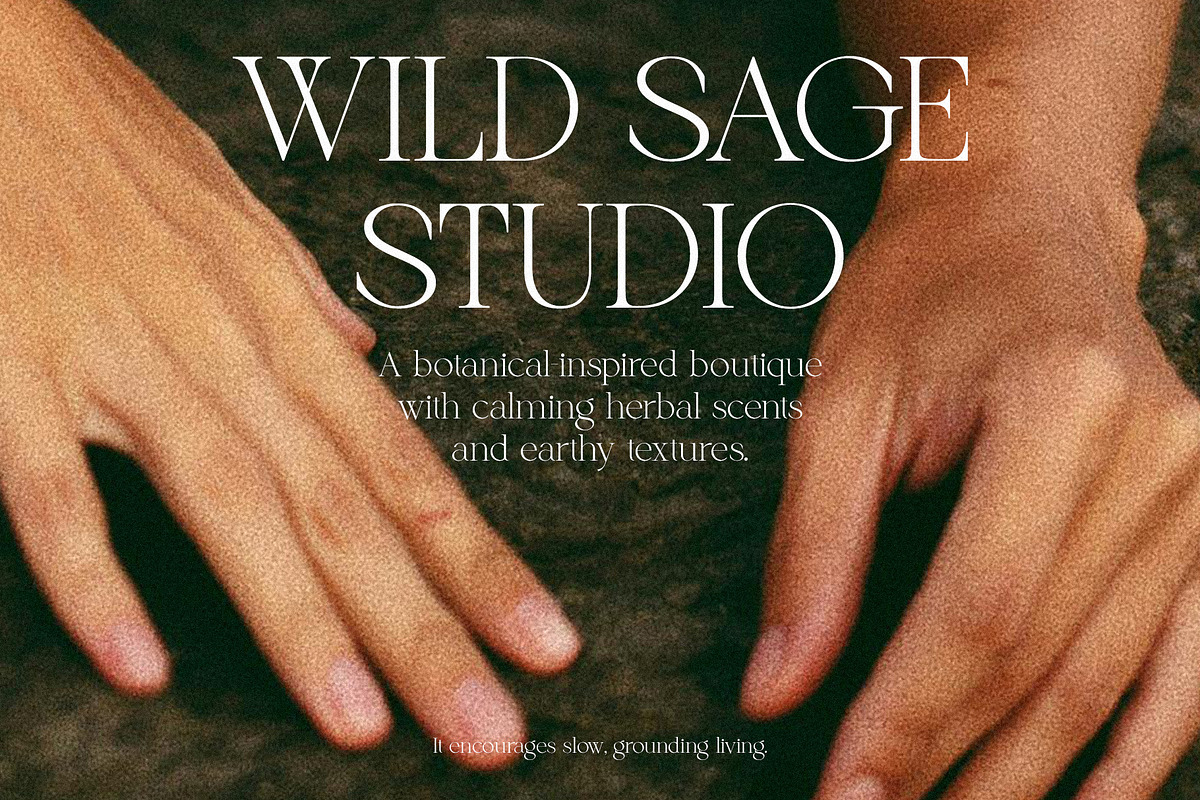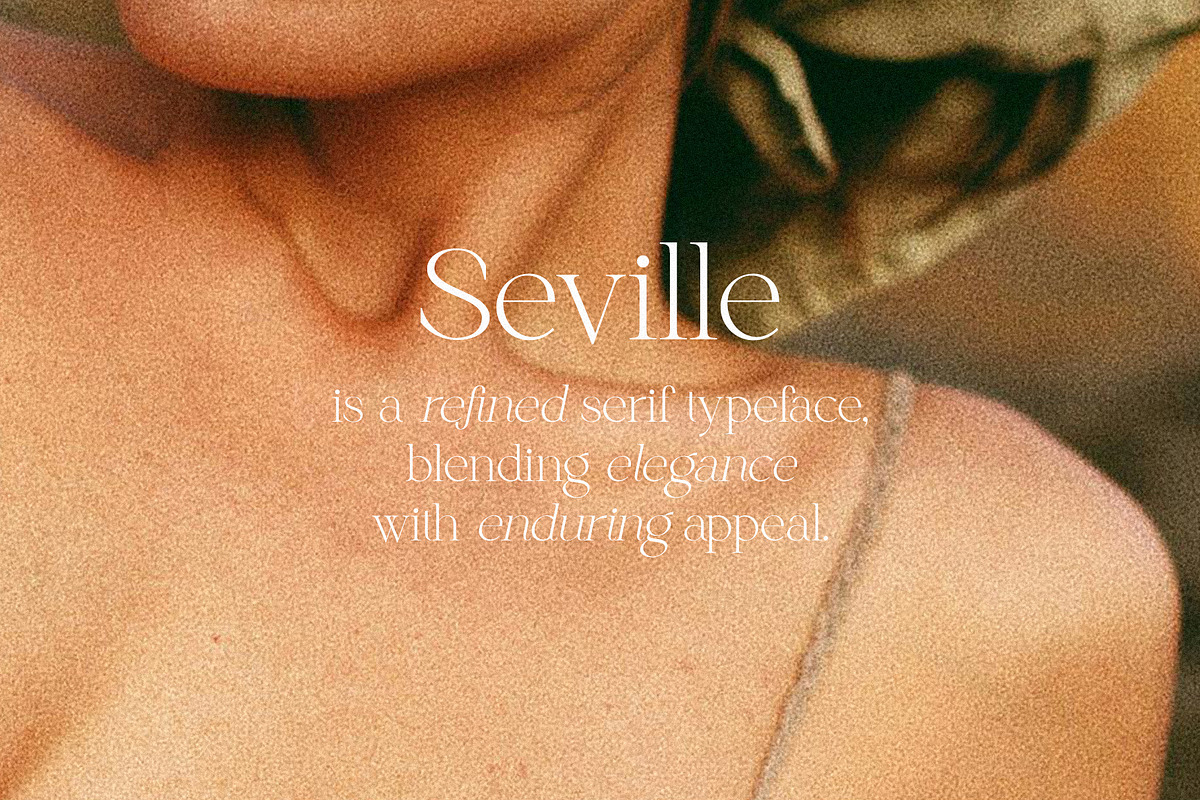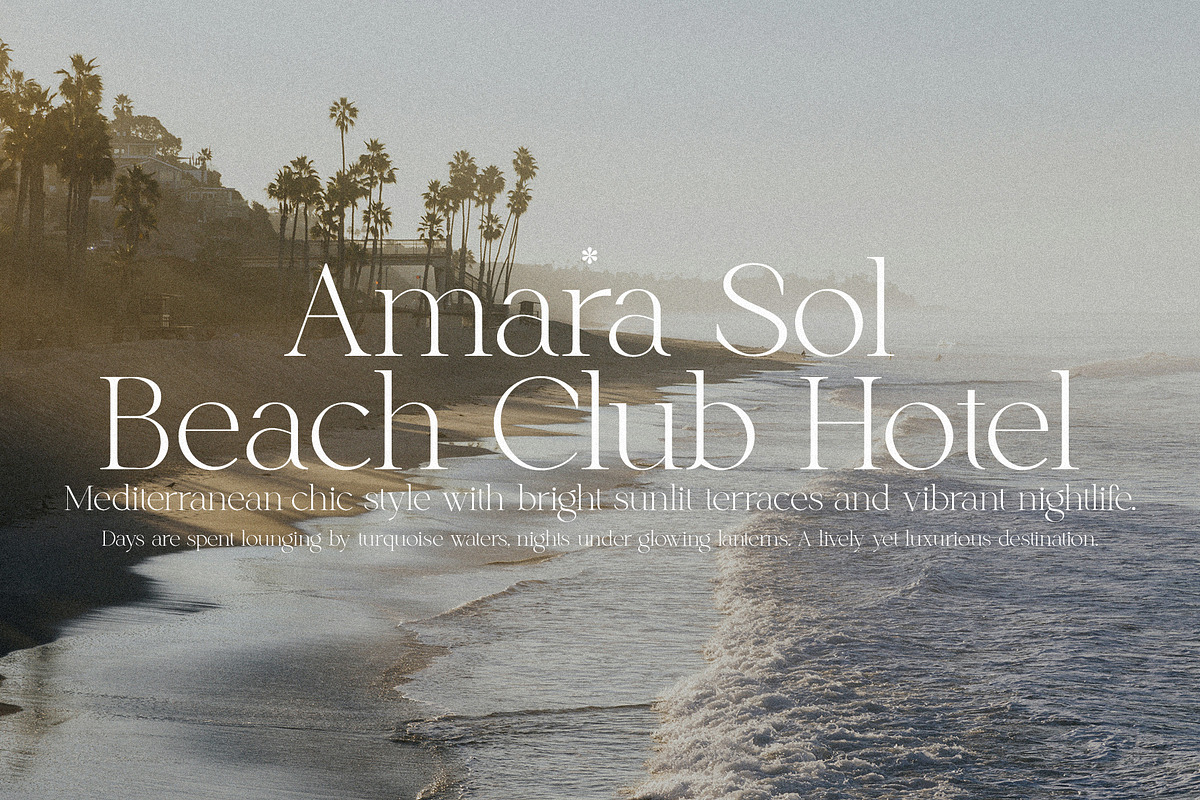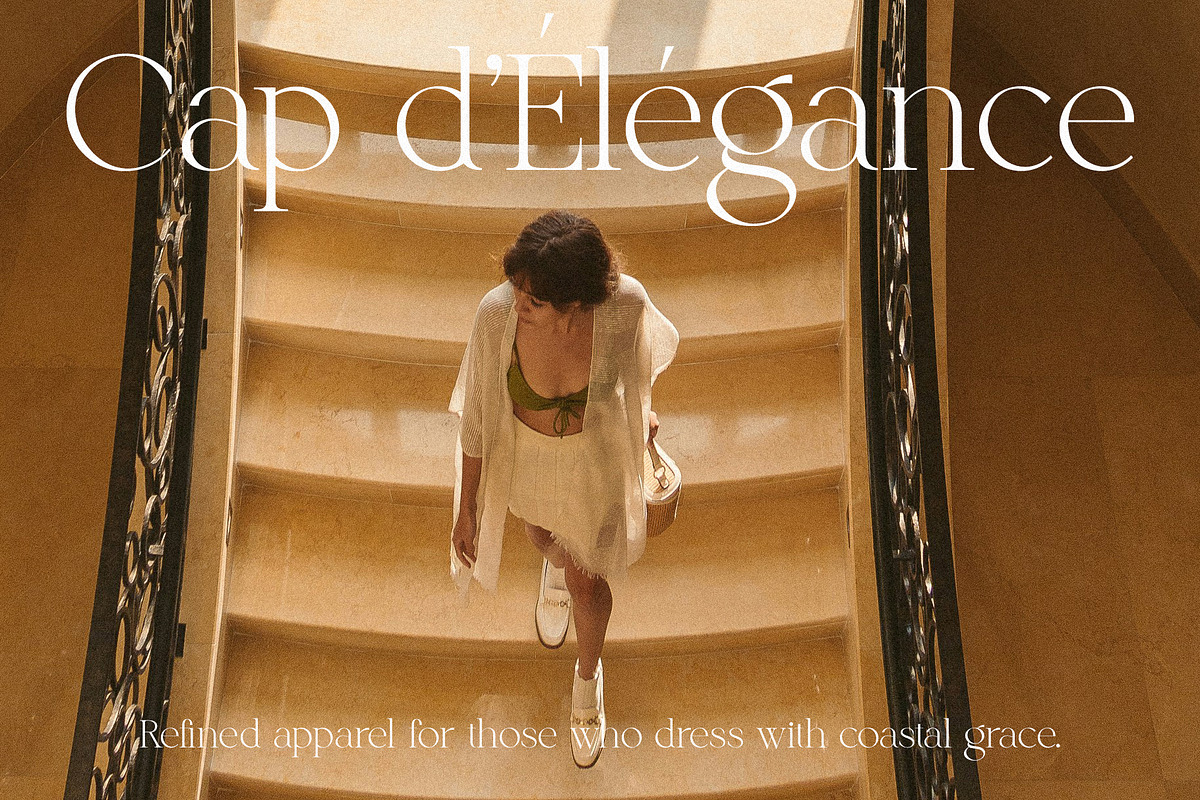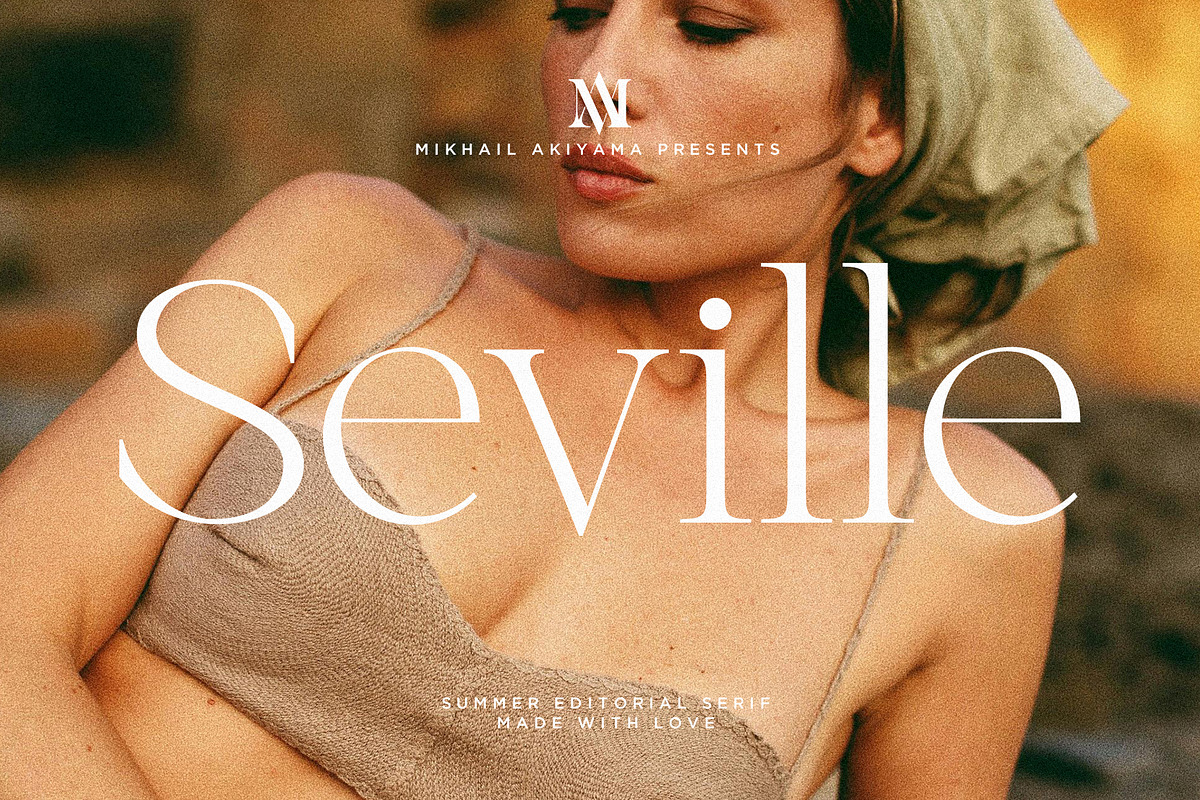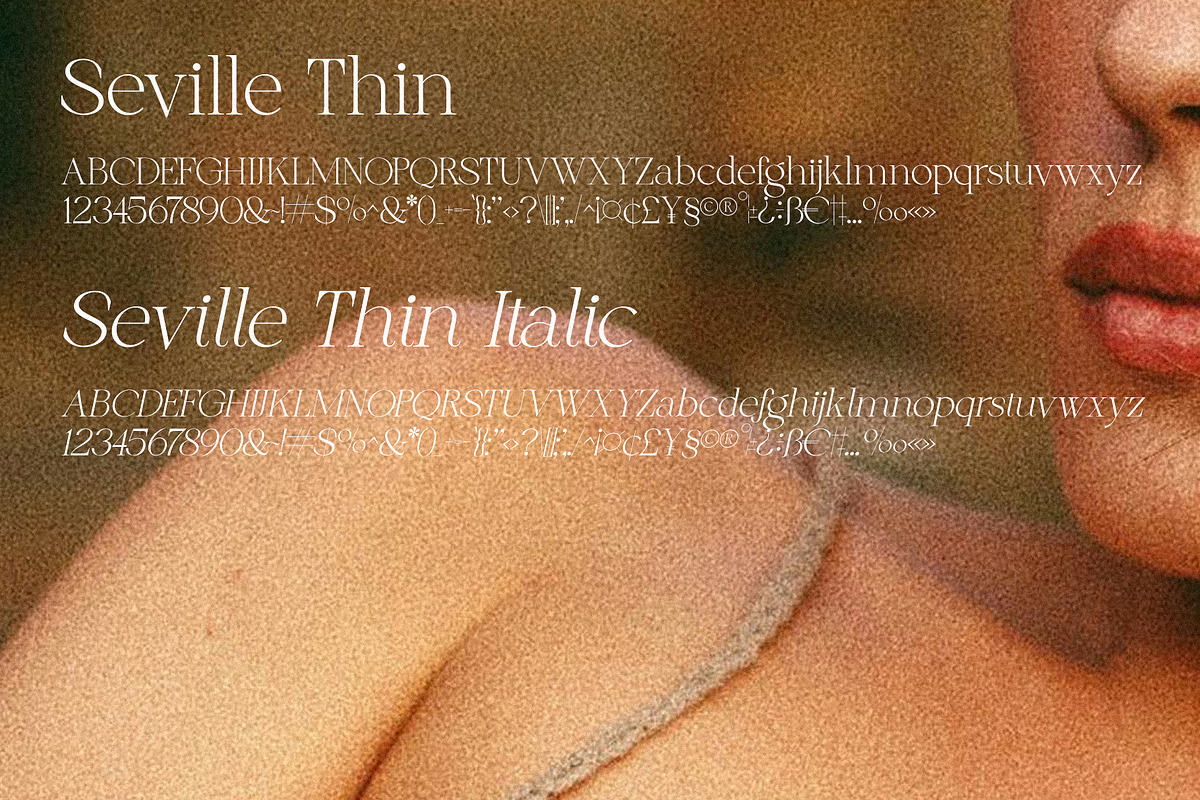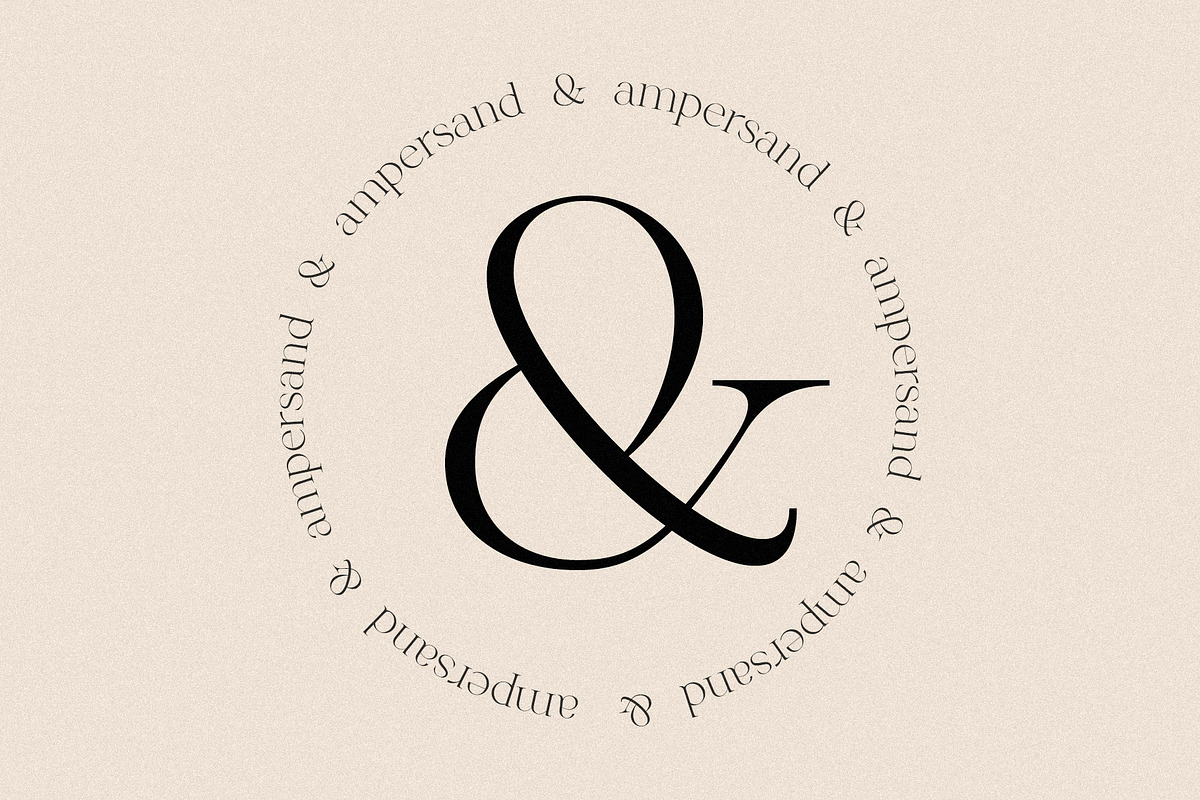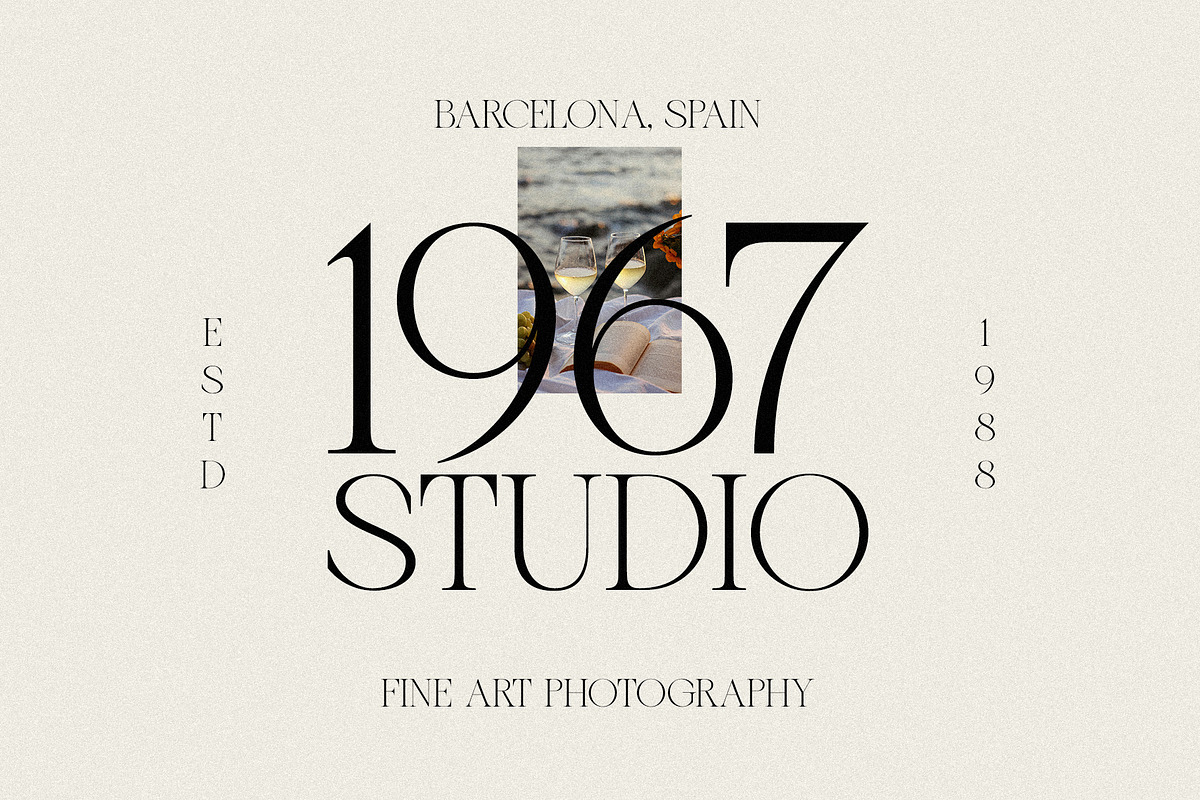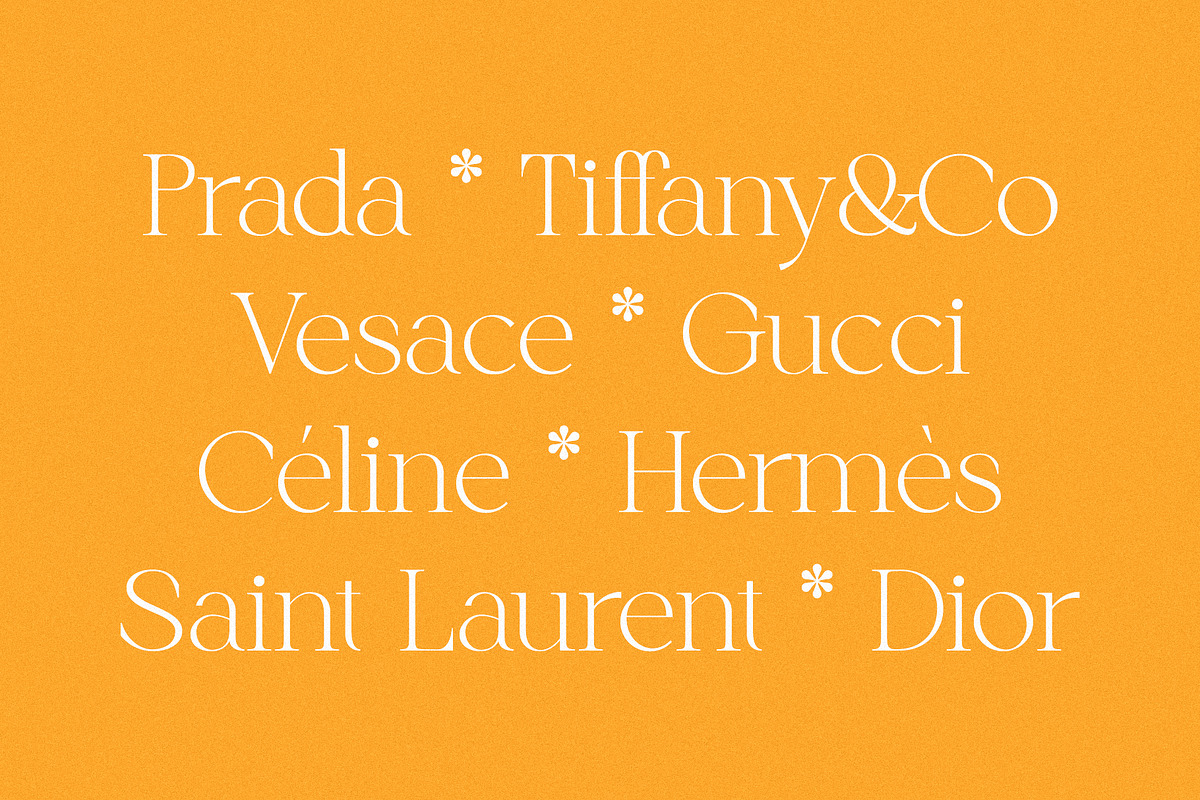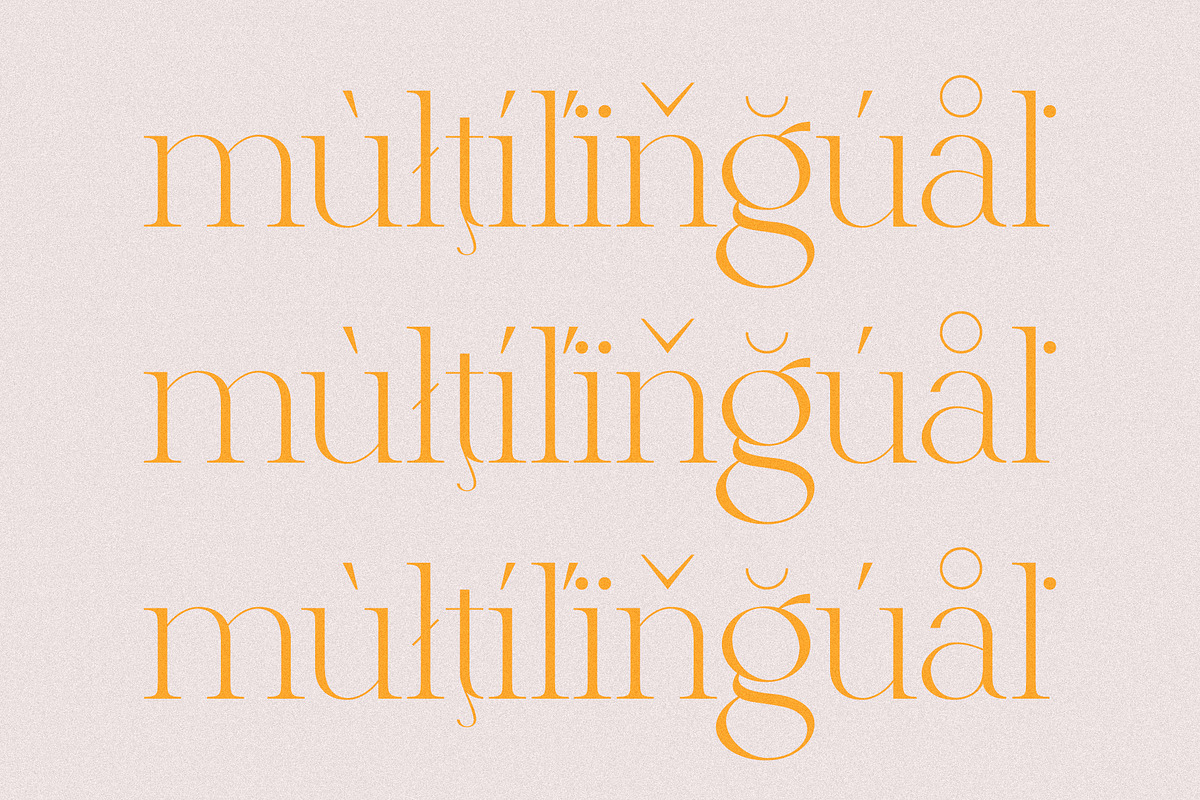
Seville - Summer Editorial Serif
Seville is a refined editorial serif inspired by sun-washed streets, slow afternoons, and the quiet elegance of southern summers. It blends classic typographic structure with warm, contemporary details, creating a typeface that feels both timeless and fresh. High-contrast strokes and confident serifs give Seville a strong, authoritative presence, while its subtle softness adds a sense of ease and approachability. Designed for magazines, branding, and long-form storytelling, Seville brings a relaxed sophistication to modern layouts-romantic, expressive, and effortlessly elevated.
Seville features uppercase & lowercase letters, numbers & symbols, ligatures, multilingual support & more than 300+ glyphs.